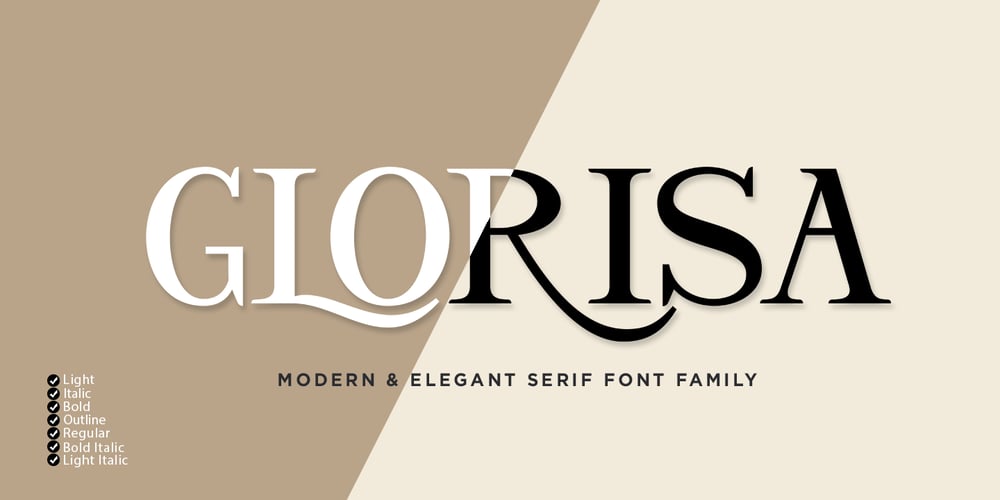
Glorisa Font Family was designed by Reza Haitami and published by Black Studio. Glorisa contains 5 styles and family package options. Glorisa is a new elegant serif font that will add a touch of luxury and style to your projects. This is a very versatile font that works well in large and small sizes. Perfect for editorial projects, magazine headers, Logo designs, Clothing Branding, product packaging, and showcasing masculine and feminine qualities.Glorisa is equipped with uppercase, lowercase, numbers and full punctuation + Multi language support and PUA-encode.To activate the OpenType Stylistic alternative, you need a program that supports OpenType features such as Adobe Illustrator CS, Adobe Indesign & CorelDraw X6-X7, Microsoft Word 2010 or a later version.Features:3 Font weightUppercase & lowercase lettersAlternative & Ligature StylesNumbers & PunctuationCharacters with accentsSupports Multiple LanguagesThis type of family has become a work of true love, making it as easy and enjoyable as possible.I really hope you enjoy it!I can’t wait to see what you do with Glorisa! Feel free to use #Black Studio tags and #Glorisa Serif fonts to show what you’ve been up to.